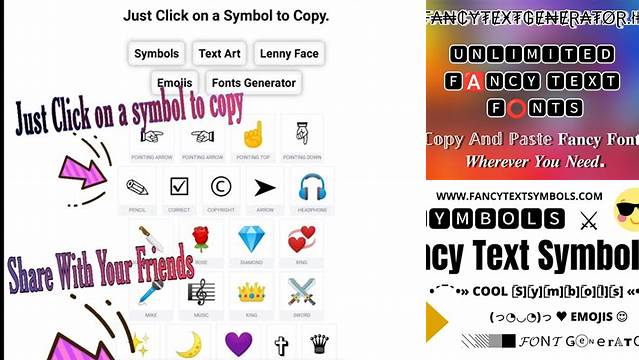
Fancy Text, Cool Fonts & Nickname Generator
Hey guys! Ever wanted to jazz up your online presence with some eye-catching text, cool fonts, or a snazzy nickname? Well, you've come to the right place! In this article, we'll dive deep into the world of fancy text generators, explore a variety of cool fonts, and even help you craft the perfect nickname that screams "YOU". Let's get started!
What are Fancy Text Symbols and Cool Fonts?
So, what exactly are fancy text symbols and cool fonts? Fancy text symbols are essentially characters and glyphs that go beyond the standard alphanumeric set you find on your keyboard. These can include anything from mathematical symbols and punctuation marks to decorative icons and even characters from different languages. When combined, they create unique text styles that stand out.
Cool fonts, on the other hand, are stylistic variations of letters and numbers. Think of it like dressing up the alphabet! Instead of plain, standard fonts like Arial or Times New Roman, cool fonts offer different shapes, weights, and designs. Some mimic handwritten styles, while others have a futuristic or retro vibe. These fonts are generated by Unicode characters and copied and pasted to your social media.
Together, fancy text symbols and cool fonts allow you to transform ordinary text into something extraordinary. They're a fantastic way to add personality, flair, and visual interest to your online communications.
Why Use Them?
You might be wondering, "Why should I even bother with fancy text and cool fonts?" Great question! Here are a few compelling reasons:
- Stand out from the crowd: In today's digital landscape, it's easy to get lost in the noise. Using fancy text and cool fonts is a surefire way to grab attention and make your content more memorable. It's all about visual appeal, and these elements add that extra "oomph" that sets you apart.
- Express your personality: Your online presence is an extension of yourself. Using unique text styles allows you to inject your personality into your messages, posts, and profiles. Whether you're going for playful, sophisticated, or edgy, the right font or symbol can help you convey your unique style.
- Enhance branding: If you're a business owner or content creator, consistent use of specific fonts and symbols can strengthen your brand identity. Think of it like a visual signature that reinforces your brand's personality and makes you instantly recognizable.
- Add a touch of fun: Let's face it; sometimes, plain text can be a little boring. Fancy text and cool fonts can inject a sense of fun and playfulness into your online interactions. It's a simple way to lighten the mood and add a bit of whimsy to your messages.
How to Use a Fancy Text Generator
Okay, so you're convinced that fancy text and cool fonts are worth exploring. Now, how do you actually use them? The easiest way is to use a fancy text generator. These online tools allow you to type in regular text and then convert it into a variety of stylized formats.
Here's a step-by-step guide:
- Find a fancy text generator: A quick Google search will reveal dozens of options. Look for one that offers a wide variety of fonts and symbols.
- Type your text: In the generator's input box, type the text you want to transform. This could be a message, a username, or anything else you want to stylize.
- Browse the options: The generator will display your text in various fancy fonts and styles. Scroll through the options and choose the one you like best.
- Copy and paste: Once you've found the perfect style, simply copy the generated text. You can then paste it into your social media profiles, messages, or anywhere else you want to use it.
Tips for Using Fancy Text Generators
- Choose readability: While it's tempting to go for the most elaborate font, make sure your text is still easy to read. Overly complex fonts can be difficult to decipher, especially on smaller screens.
- Consider context: The font you choose should be appropriate for the context in which you're using it. A playful font might be perfect for a casual social media post, but it might not be suitable for a professional email.
- Be consistent: If you're using fancy text for branding purposes, stick to a consistent style across all your platforms. This will help reinforce your brand identity.
- Test on different devices: Before you commit to a particular font, test it on different devices and browsers to make sure it displays correctly. Some fonts may not be supported on all platforms.
Cool Font Examples
Let's take a look at some examples of cool fonts you can generate using these tools:
- Cursive fonts: These fonts mimic the look of handwriting and add a touch of elegance and sophistication. They're perfect for creating a personal and intimate feel.
- Gothic fonts: With their sharp angles and dramatic flair, gothic fonts exude a sense of mystery and power. They're often used in gaming and fantasy-related content.
- Pixel fonts: These retro-inspired fonts evoke the look of old-school video games and computer screens. They're a great choice for adding a nostalgic touch to your content.
- Bubble fonts: With their rounded shapes and playful vibe, bubble fonts are perfect for creating a fun and lighthearted atmosphere. They're often used in children's content and casual social media posts.
- Graffiti fonts: These fonts mimic the look of street art and add a touch of urban edge to your content. They're often used in music and fashion-related content.
Nickname Generator: Finding Your Perfect Online Alias
Now, let's move on to nickname generators! A good nickname can be a powerful tool for self-expression and online identity. It can be catchy, memorable, and reflective of your personality or interests. But coming up with the perfect nickname can be a challenge. That's where a nickname generator comes in handy.
How to Use a Nickname Generator
Nickname generators are online tools that create random nicknames based on your input. Here's how to use them:
- Find a nickname generator: Just like with fancy text generators, a quick search will reveal plenty of options. Look for one that allows you to specify your gender, interests, or other criteria.
- Enter your information: Provide the generator with any relevant information, such as your name, gender, hobbies, or personality traits.
- Generate nicknames: The generator will then create a list of random nicknames based on your input. Browse the options and see if anything catches your eye.
- Customize (optional): If you don't find a nickname you love, you can often customize the results by adding prefixes, suffixes, or other modifiers.
Tips for Choosing a Nickname
- Keep it short and memorable: A good nickname should be easy to remember and pronounce. Avoid overly long or complicated names.
- Reflect your personality: Choose a nickname that reflects your personality, interests, or sense of humor. This will help you connect with others who share your passions.
- Be unique: Avoid using generic or overused nicknames. Aim for something that stands out and reflects your individuality.
- Check for availability: Before you settle on a nickname, make sure it's not already in use on the platforms where you plan to use it.
So, there you have it! A comprehensive guide to fancy text symbols, cool fonts, and nickname generators. With these tools and tips, you can transform your online presence and express yourself in new and exciting ways. Go ahead, experiment with different styles, and find the perfect combination that reflects your unique personality and brand. Have fun!